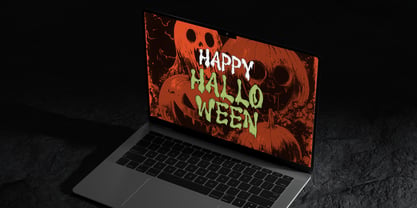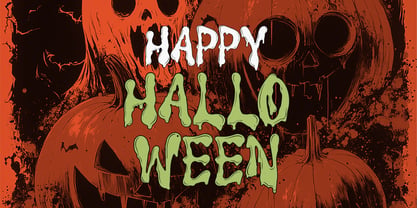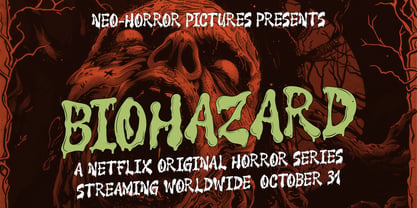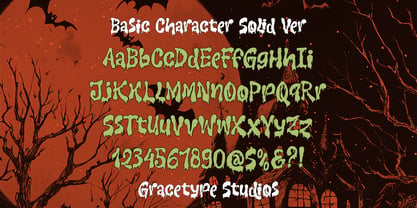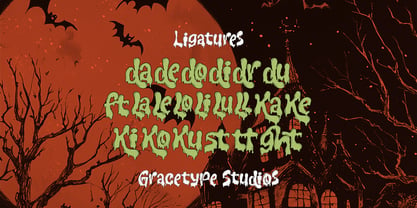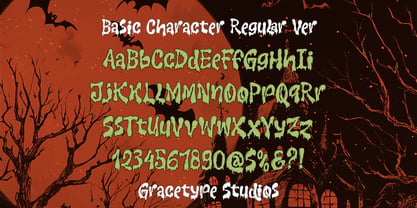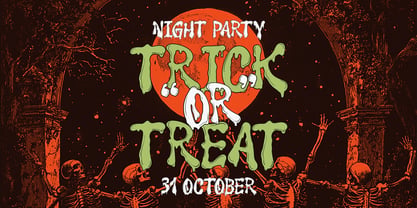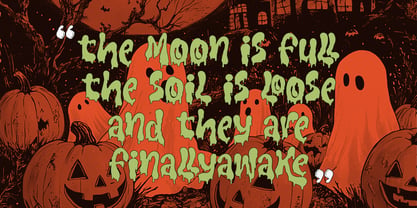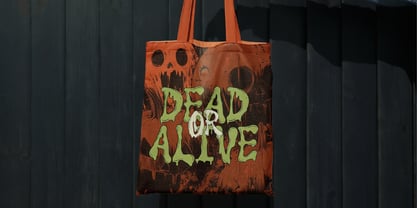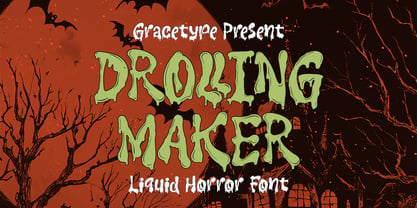
Drolling Maker
por Tini Fitriani
La familia tipográfica Drolling Maker y publicada por Tini Fitriani. Drolling Maker contiene 2 estilos y opciones de paquete familiar. Más información sobre esta familia
Drolling Maker | Liquid Horror Font, from Gracetypestudio, suitable for any projects such as: logos, branding projects, homeware designs, product packaging, mugs, quotes, posters, shopping bags, t-shirts, book covers, name card, invitation cards, greeting cards, label, photography, watermark, special events, and all your other lovely projects that need a Horror Font taste.